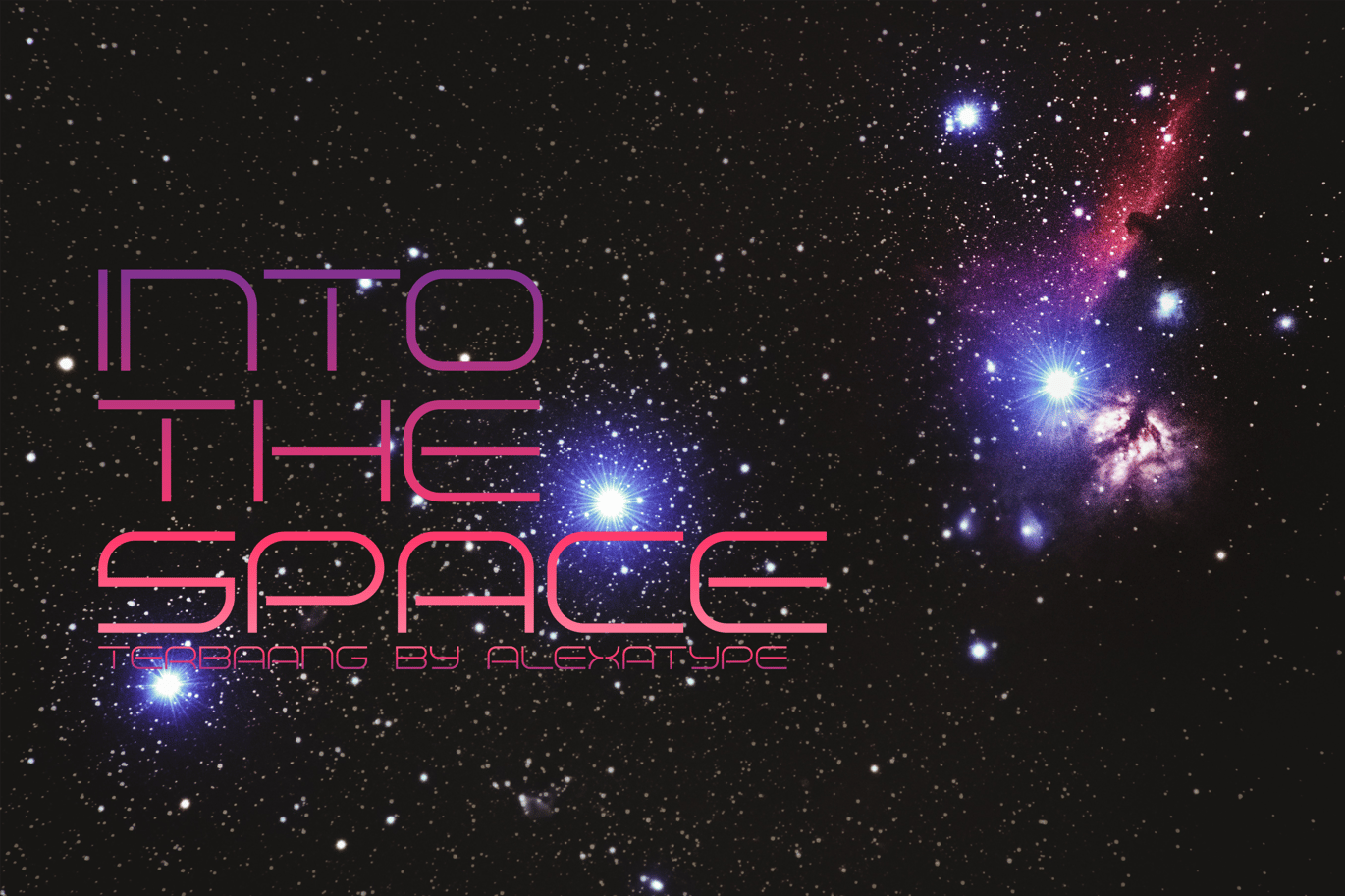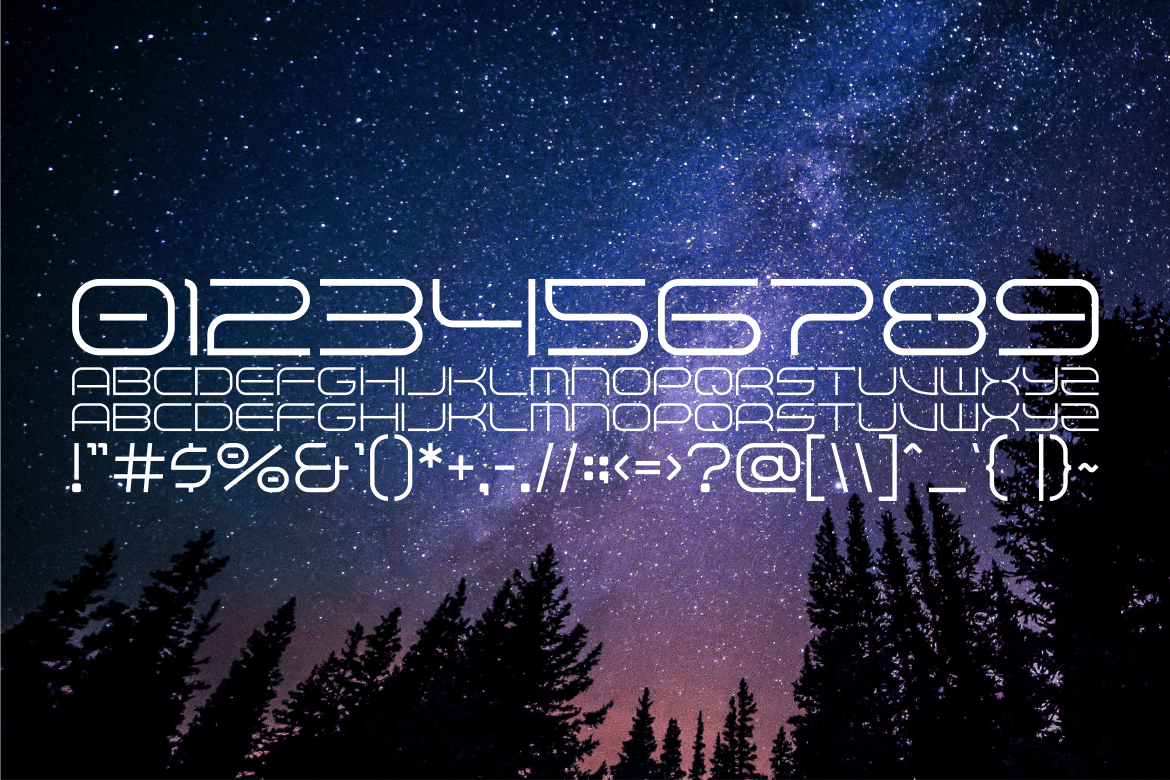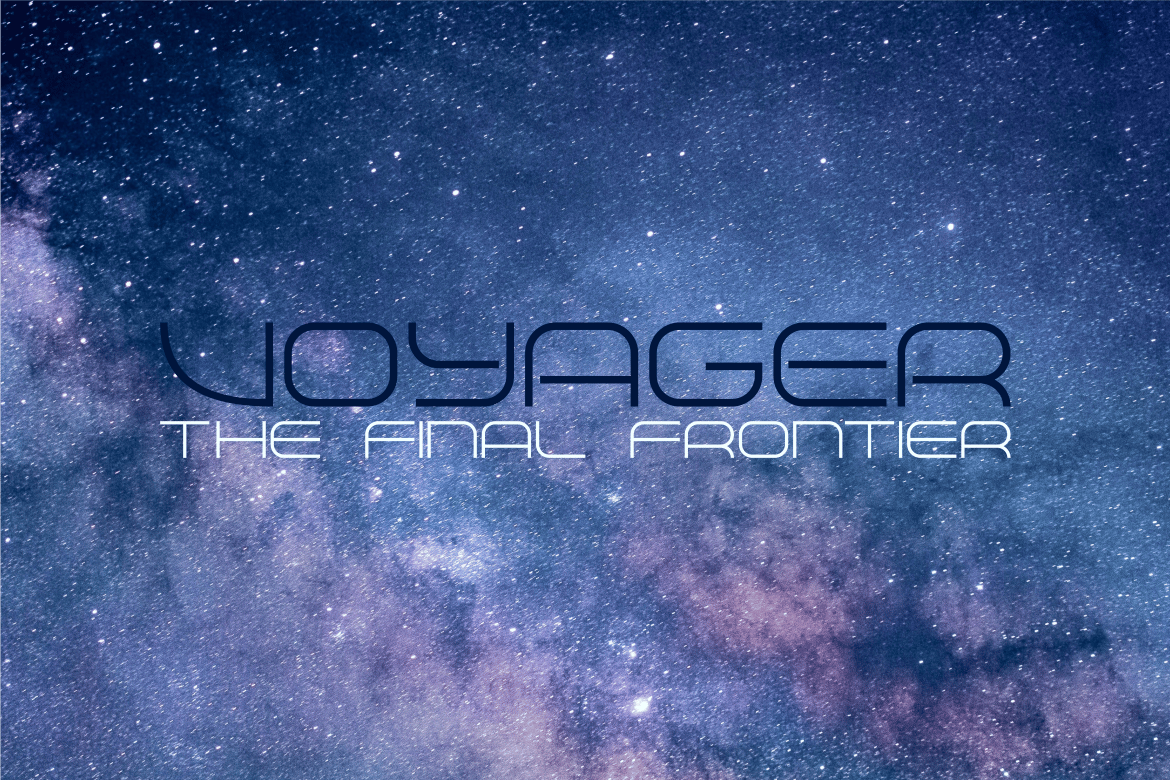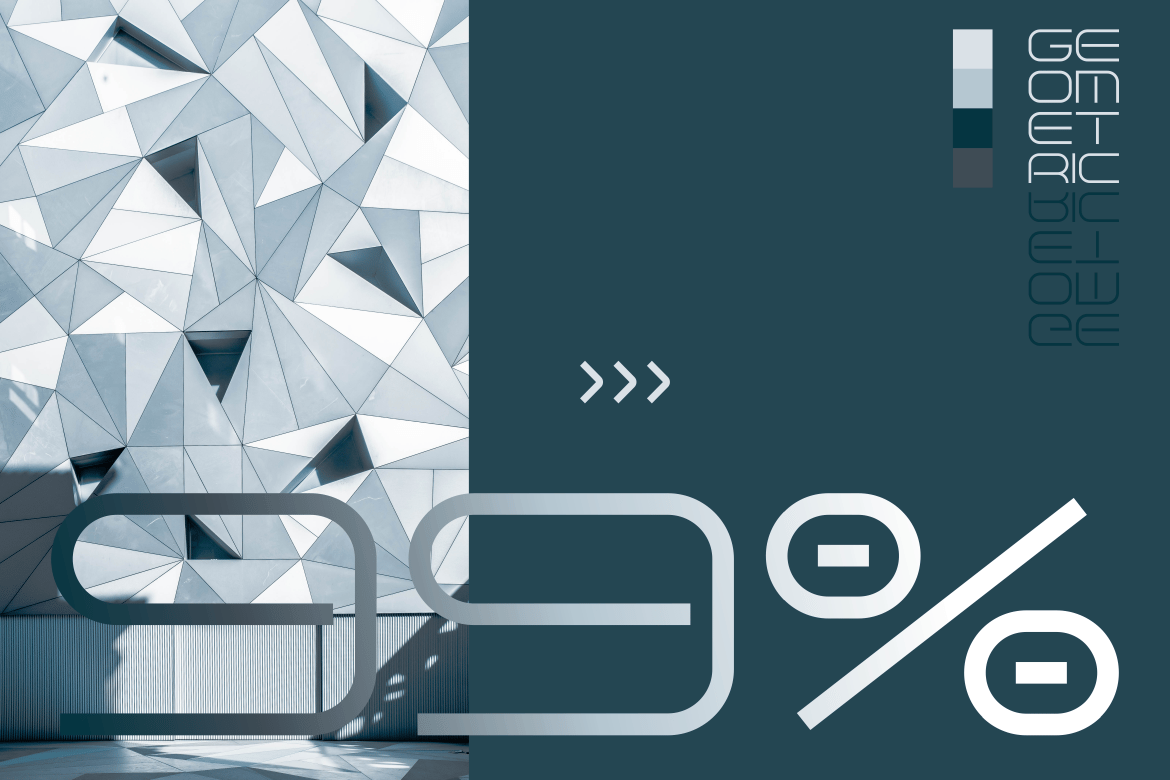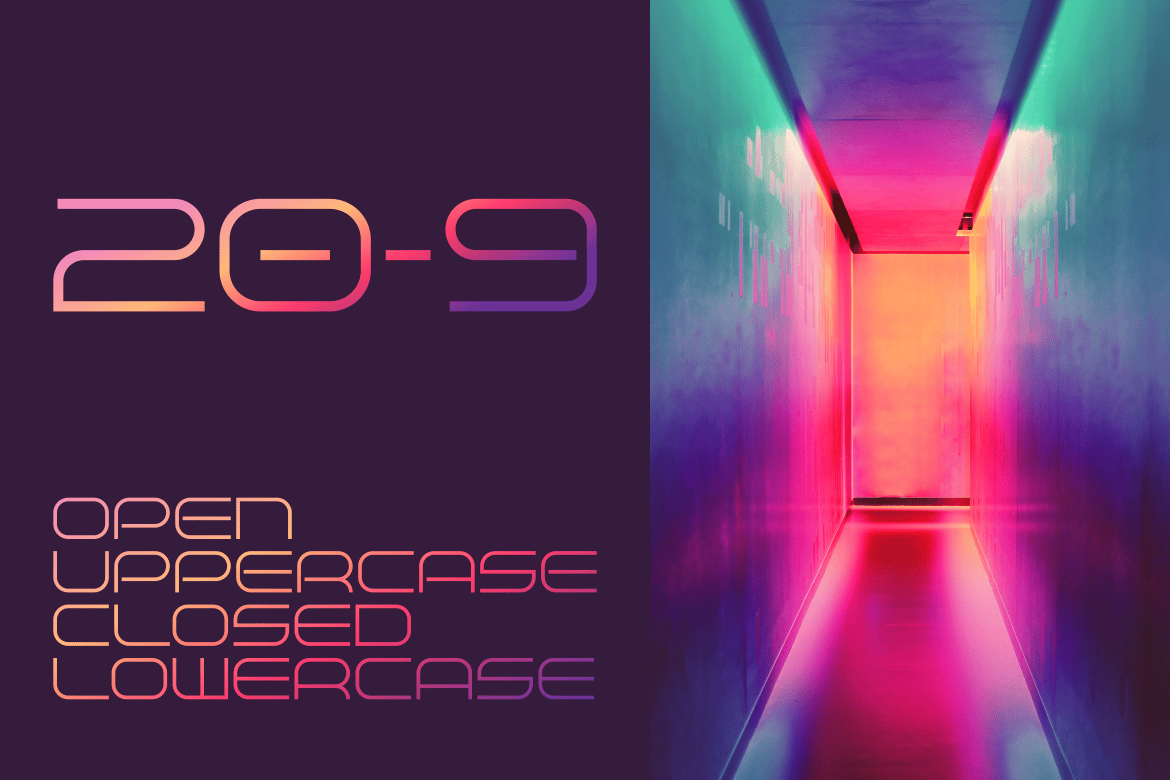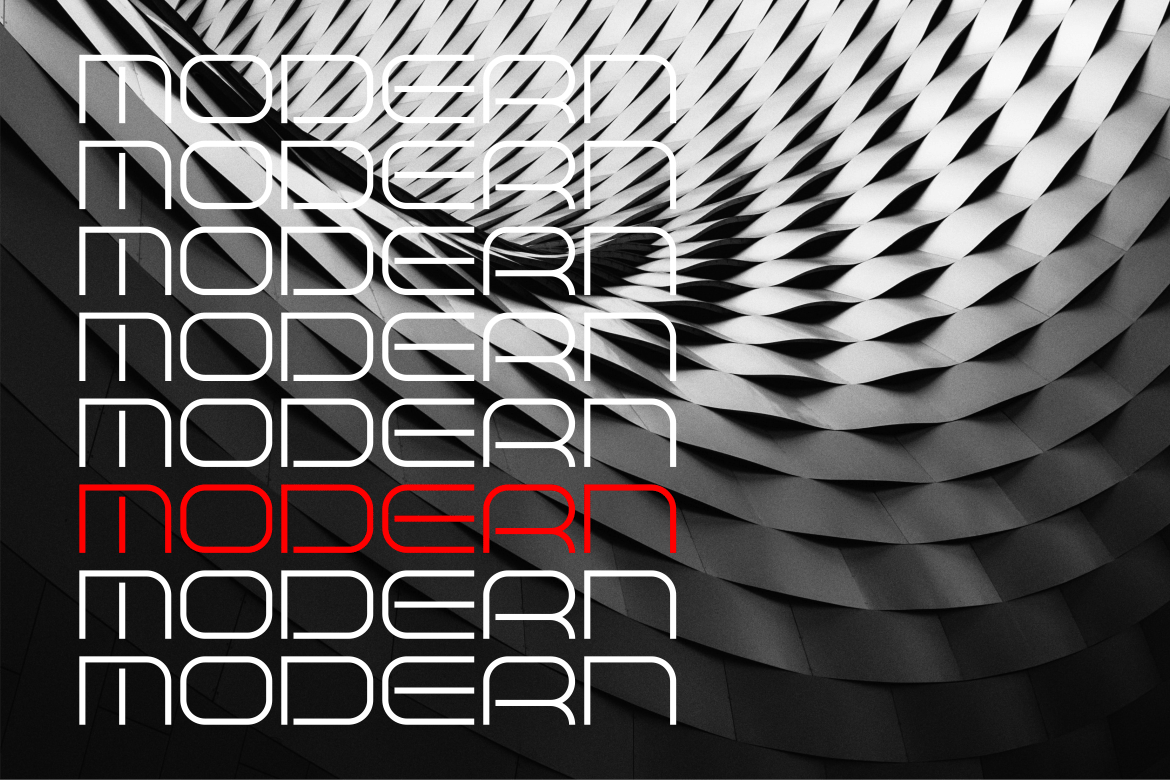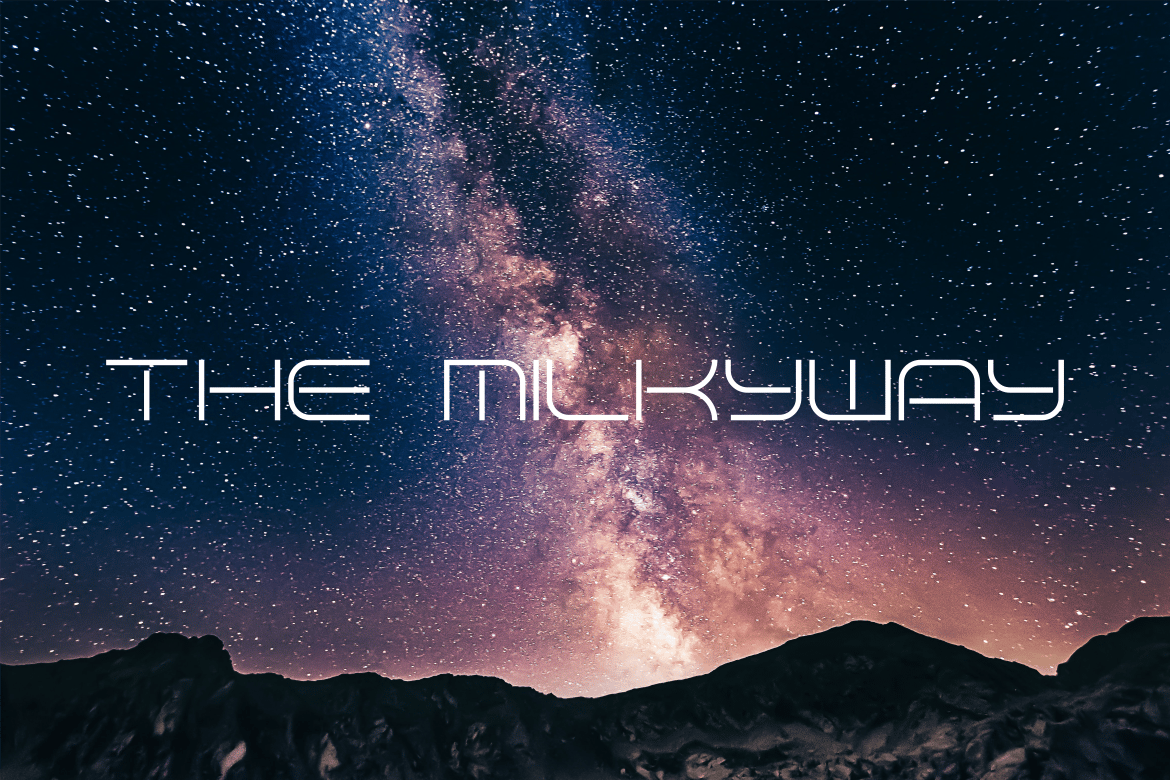
TERBAANG – Space Font
TERBAANG – space font
TERBAANG is a geometric wide font with thin line, reflect the modern technology and future.
Perfect for high-end article headline, space, and digital related project.
The uppercase has an open connection model, while the lowercase have a close version.